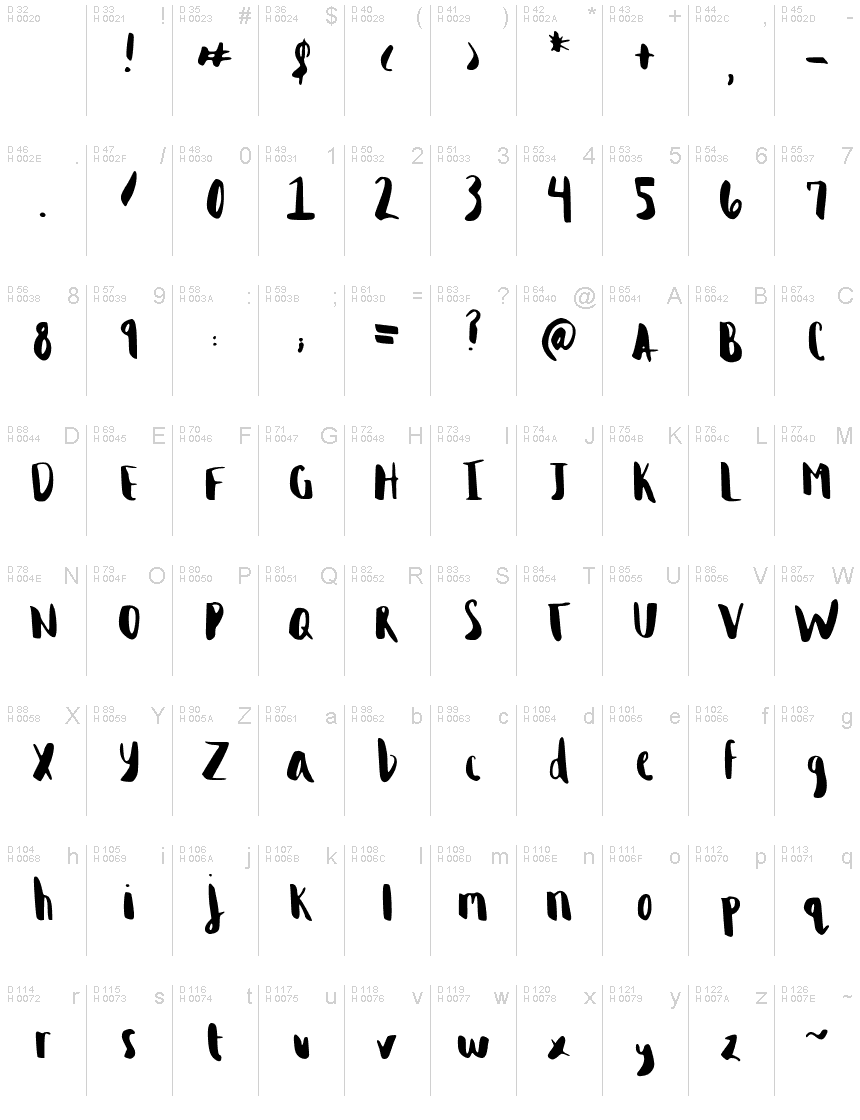
Brandy_Alexander
Yay! A new font called Brandy Alexander for personal use. I hope you enjoy this. Feel free to use this handwritten font for anything personal of yours (blog headers, graphics, that sort of stuff). If you'd like to us it for anything more, please email me and we'll work something out!